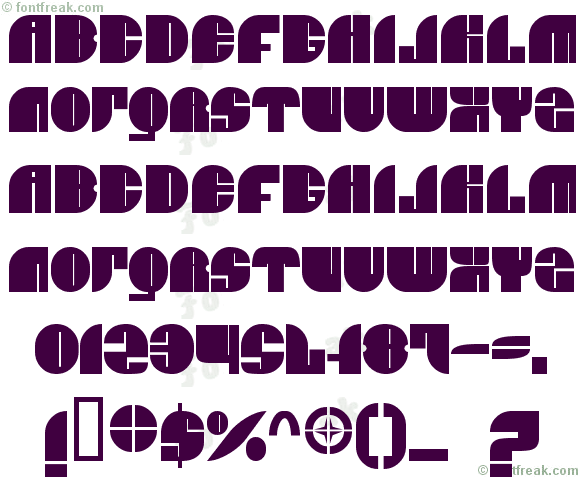
BN JNCO
About JNCO
The JNCO font, designed by Ben Nathan, is a striking display font that perfectly embodies a unique blend of contemporary and retro aesthetics. As a decorative typeface, it features bold, rounded letterforms that create an inviting and playful character. The stroke weight is consistent yet pronounced, contributing to a strong visual impact. The font exhibits minimal contrast, which enhances readability while maintaining its whimsical charm. The spacious letter spacing further adds to its legibility, making it an excellent choice for a variety of applications.
Ideal for use in eye-catching movie posters, vibrant event flyers, and trendy merchandise branding, the JNCO font can also elevate restaurant menus and creative advertising campaigns. Its playful personality makes it particularly appealing for projects aimed at a younger audience, such as music festivals, streetwear brands, and graphic design portfolios. This font resonates well with graphic designers, small business owners, and content creators looking to make a memorable statement.
One of the standout features of the JNCO font is its ability to convey a sense of fun and creativity. Its distinctive design ensures that any text set in this typeface commands attention, making it an excellent choice for those who want to stand out in a crowded visual landscape. The JNCO font free download offers an accessible way for users to incorporate this unique typeface into their design projects without any financial constraints. With its bold personality and versatility, JNCO is not just a font; it's a statement that can transform ordinary text into an engaging visual experience.